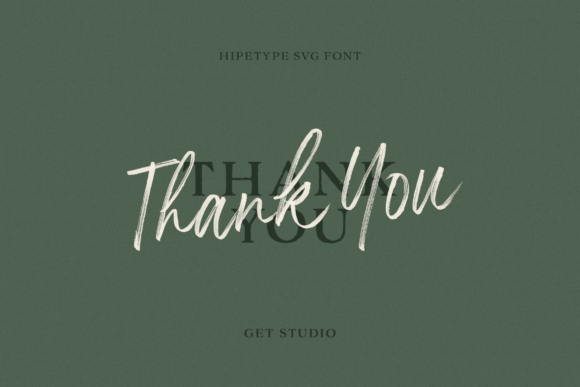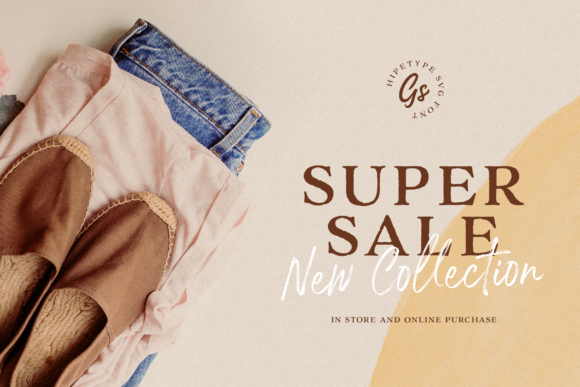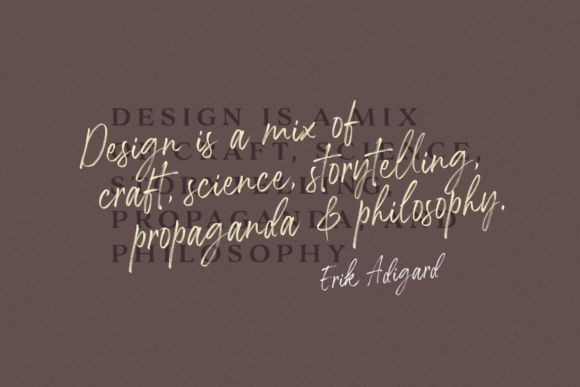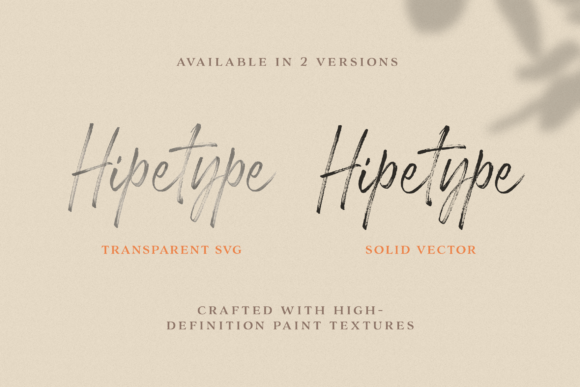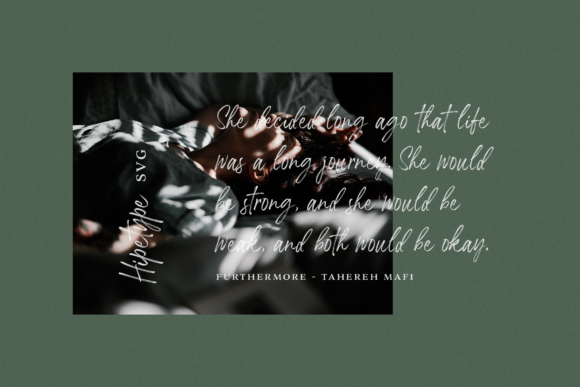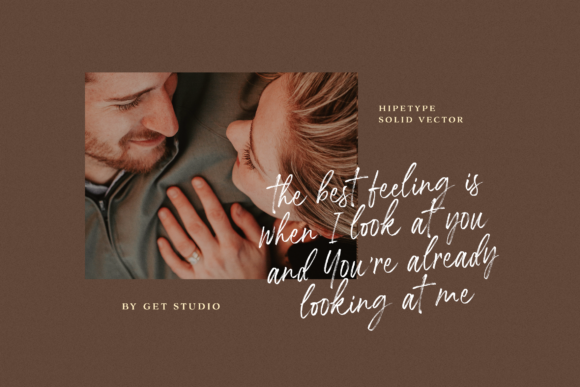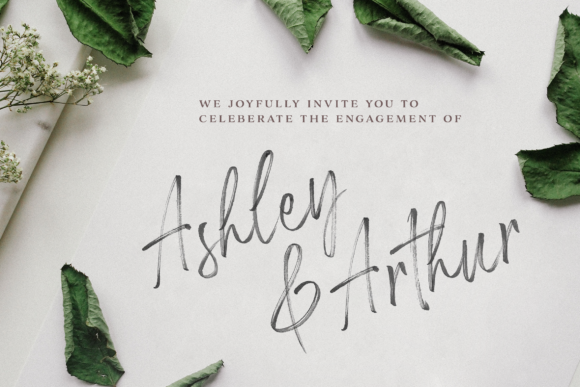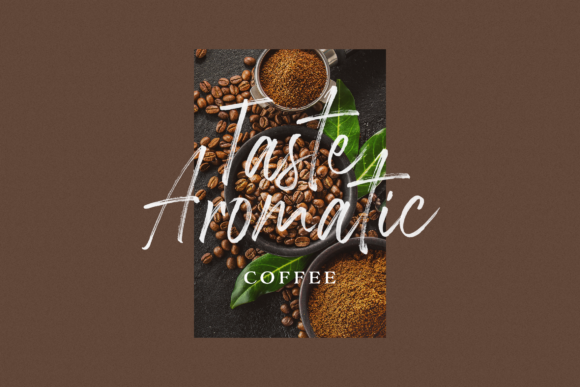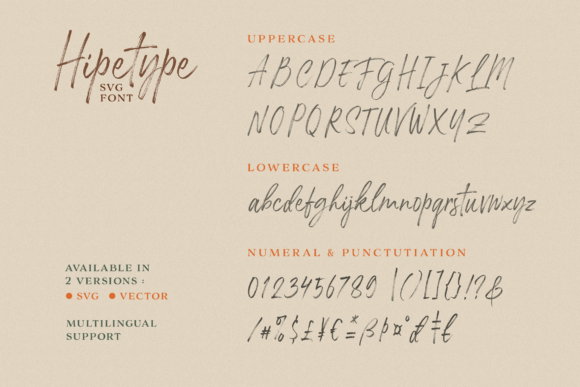
HomeScript FontsHipetype Font Script Fonts Hipetype Font FacebookXPinterestWhatsApp Hipetype Font Poster 2 Hipetype Font Poster 3 Hipetype Font Poster 4 Hipetype Font Poster 5 Hipetype Font Poster 6 Hipetype Font Poster 7 Hipetype Font Poster 8 Hipetype Font Poster 9 Hipetype Font Poster 10 About Hipetype Font Hipetype is a unique script font that will allow you to create gorgeous designs in an instant. DOWNLOAD NOW People also explored California Font Air Near Font Hair Crafter Spring Font Zelda Font Hand Beer Mockup Welcome December Font Hikren Font Carbondale Font Bleach Font 313 0 TagsHipetype Font Previous articleShoreline FontNext articlePastcode Font LEAVE A REPLY Cancel reply Comment: Please enter your comment! Name:* Please enter your name here Email:* You have entered an incorrect email address! Please enter your email address here Website: Save my name, email, and website in this browser for the next time I comment. Personal Use Free Nouradilla Script Free Version Personal Use Free Read more about this font The Bocah Personal Use Free Read more about this font Hunters Personal Use Free Read more about this font Styledeep Personal Use Free Read more about this font BLOG Top 10 Handwritten Fonts That Elevate Your Designs Top 10 Handwritten Fonts That Will Elevate Your Designs Handwritten fonts bring a warm, personal touch to every creative project. Whether you're designing logos, invitations,... How to Cut Any Font on Cricut: Convert a Font to SVG (Free) 5 Fonts That Will Dominate Design Trends in 2026 Modern Sans-Serif Fonts That Brands Love in 2025